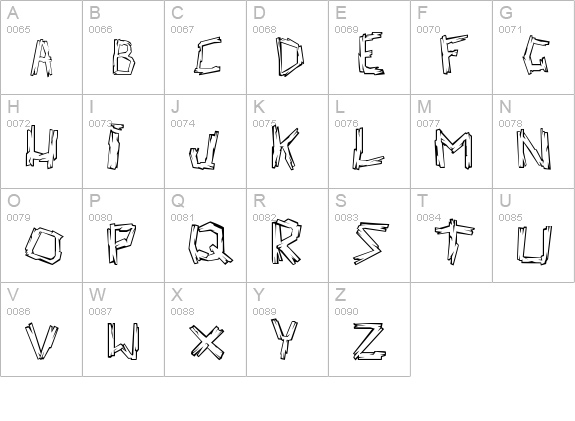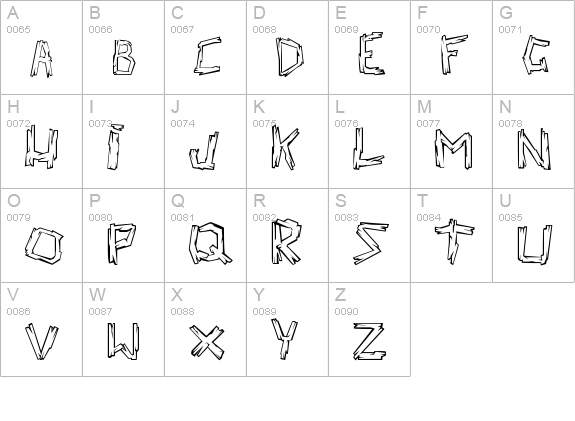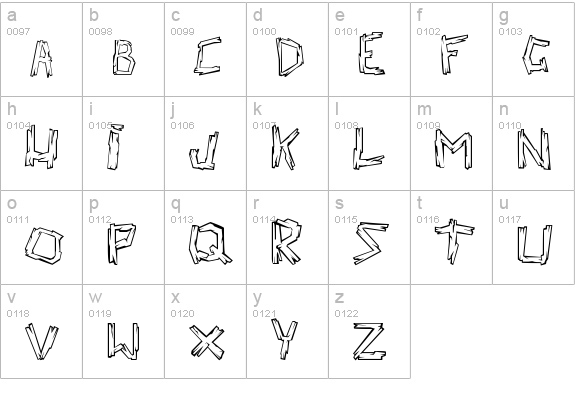
Walk the Plank font is a whimsical and adventurous typeface that will transport your designs to the high seas with its playful and nautical-inspired design. This font exudes a sense of swashbuckling fun and daring exploration, making it perfect for projects that need a touch of adventurous spirit. With its bold and eye-catching letterforms, Walk the Plank font will make your text stand out and command attention. Whether you're designing a pirate-themed party invitation, a treasure map, or a logo for a maritime-themed business, this font will add an element of excitement and charm to your creations. Best of all, Walk the Plank font is available for free download at FontsMarket.com. So you can easily add this adventurous font to your collection and start creating captivating designs today. Unleash your creativity and set sail with Walk the Plank font!